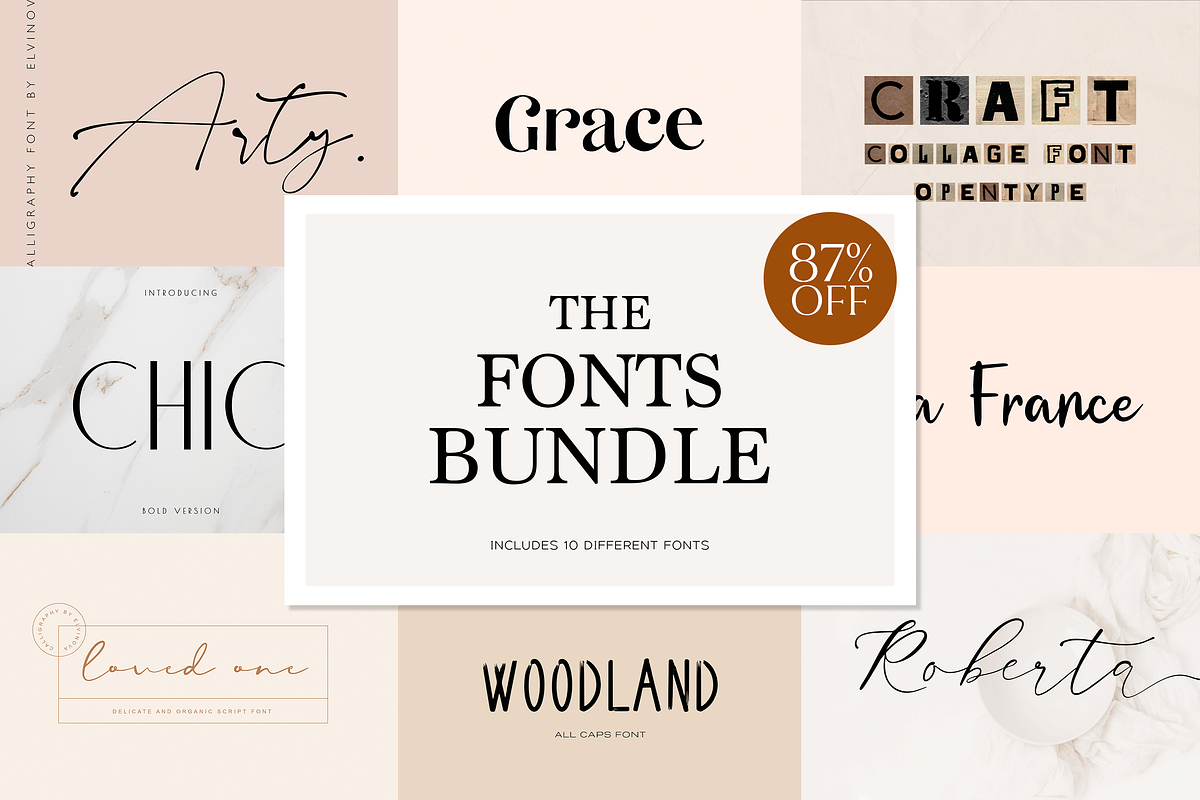
The Font Bundle Free Download
The Font Bundle Free Download is an extensive collection of premium fonts designed to cover every style and need. From elegant serifs and modern sans serifs to playful scripts and creative display fonts, this bundle offers 50+ fonts that are perfect for a wide range of projects including branding, web design, logos, packaging, editorial layouts, and more.
With its versatile range, The Font Bundle provides designers with everything they need to create stunning, customized typography. Whether you're working on a minimalist project, vintage designs, or high-impact branding, this bundle has the perfect font for any application.